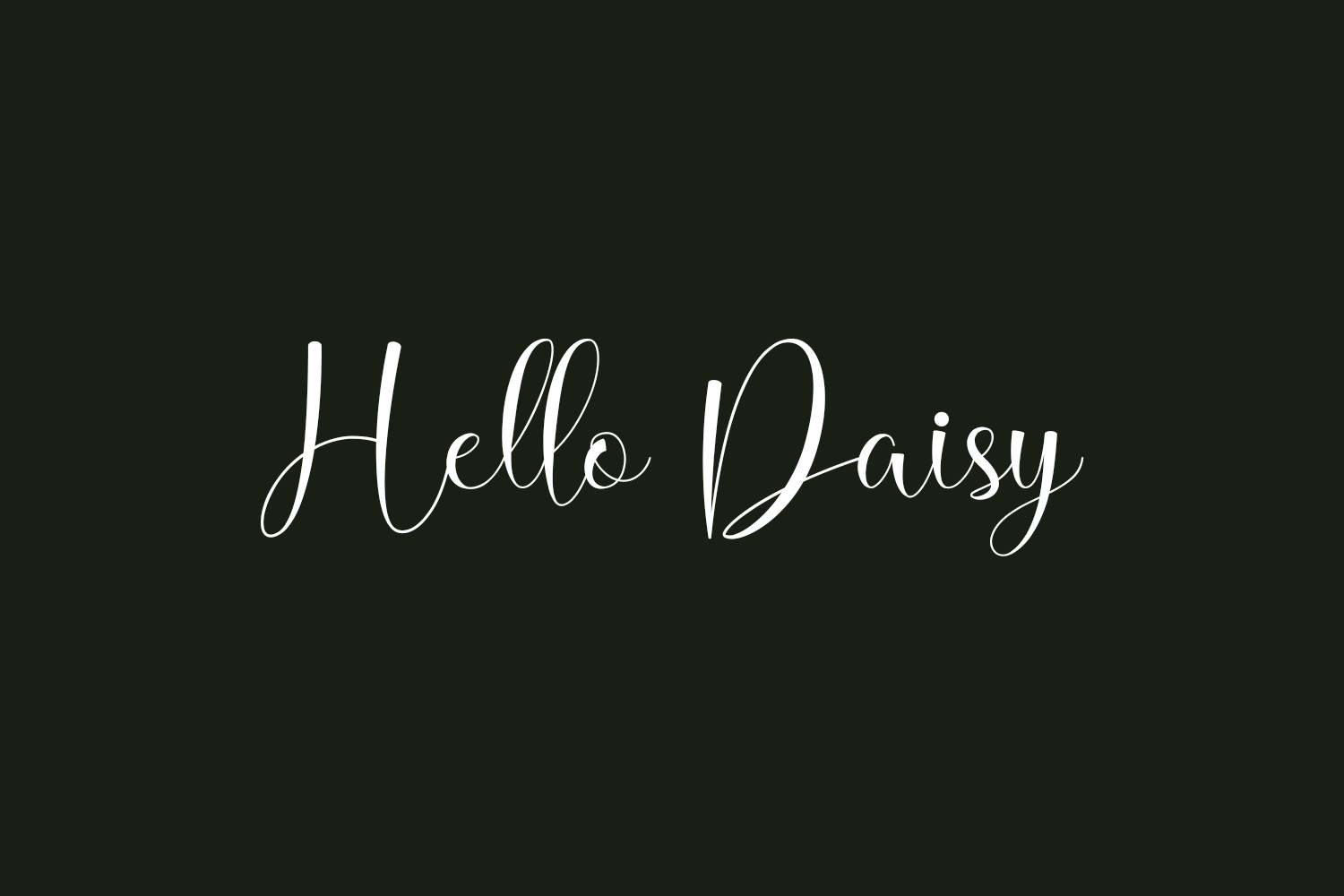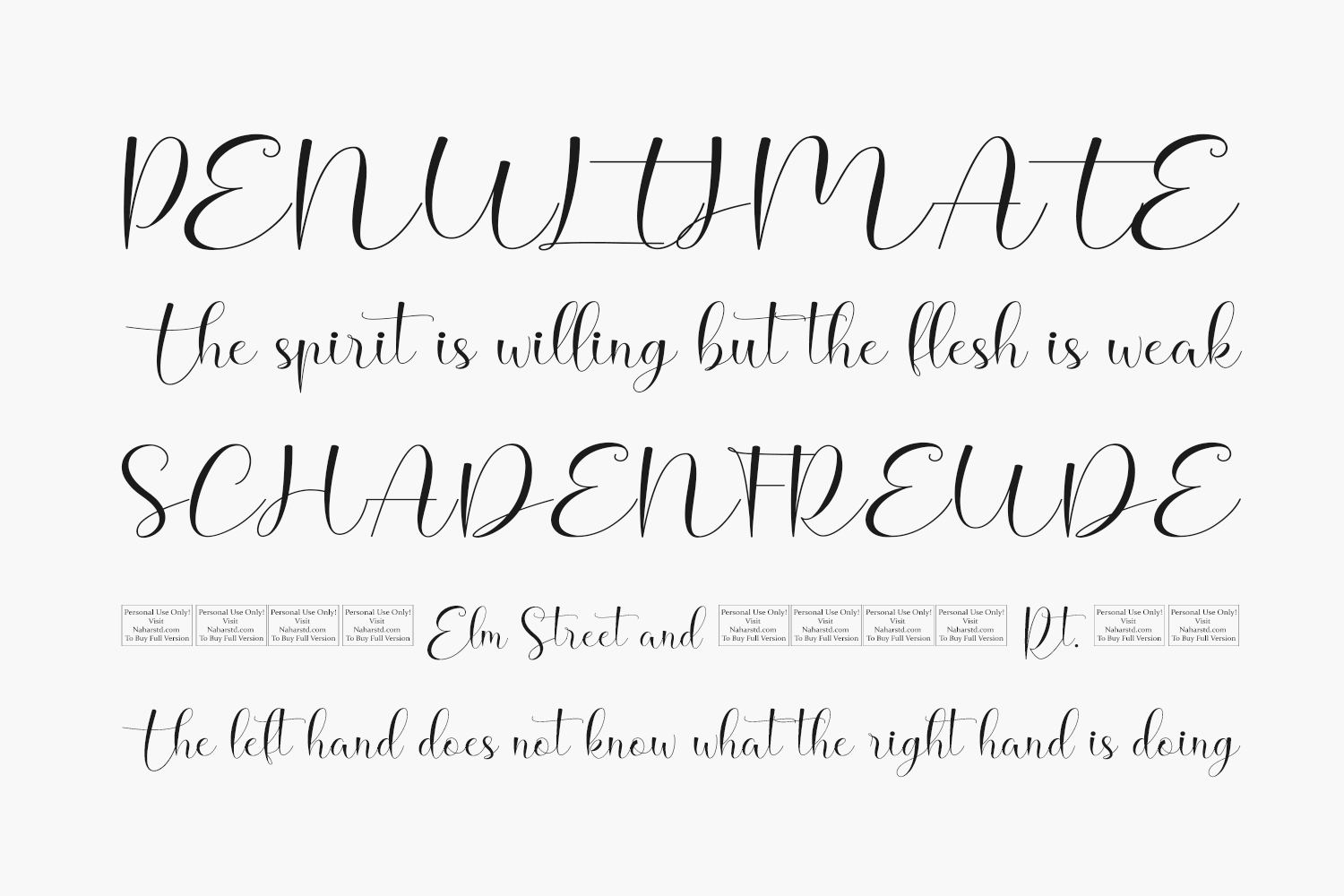
Hello Daisy Free Font is an incredibly distinct, delicate, and timeless handwritten font. It looks stunning on wedding invitations, thank you cards, quotes, greeting cards, logos, business cards, and every other design which needs a handwritten touch. This font is PUA encoded which means you can access all of the glyphs and swashes with ease! It features a varying baseline, smooth lines, gorgeous glyphs, and stunning alternates. Hello Daisy Free Font was designed by Naharstd is a demo and free for personal use only. Please purchase the full version for commercial use.